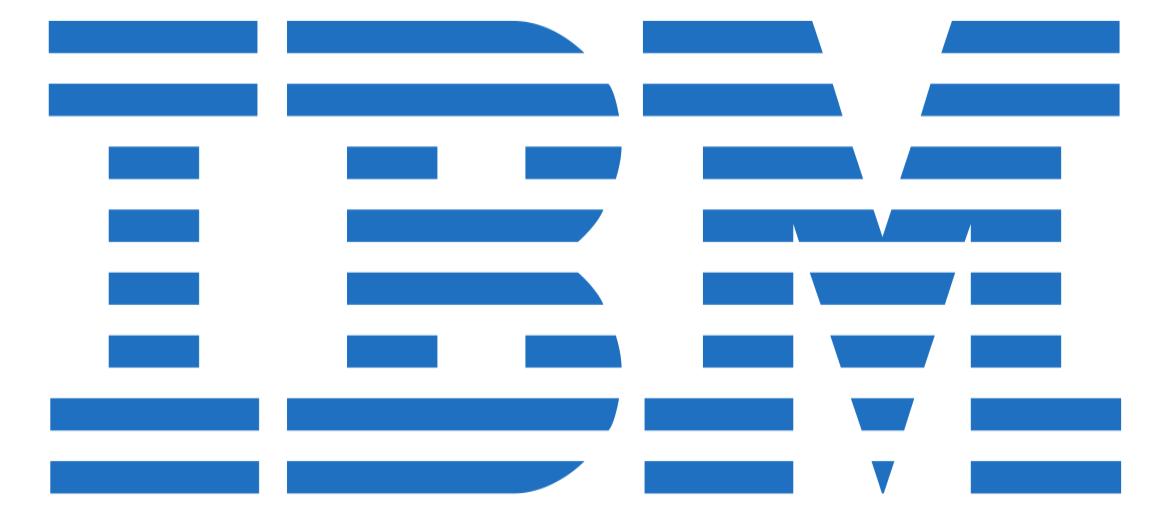
IBM Font
The IBM Font is an essential part of the company’s visual identity, reflecting the precision and strength that define its global reputation. Based on the City Medium typeface by Georg Trump, this custom-designed lettering conveys a clear sense of professionalism, innovation, and corporate authority. Its geometric symmetry and bold strokes make it ideal for conveying confidence and stability—key traits in IBM’s long-standing brand image.
In both print and digital environments, the IBM Font maintains exceptional readability and consistency, symbolizing the company’s technical heritage and forward-thinking design philosophy. Its structured appearance embodies the perfect balance between tradition and modernity, giving the brand an unmistakable visual signature that has endured for decades.